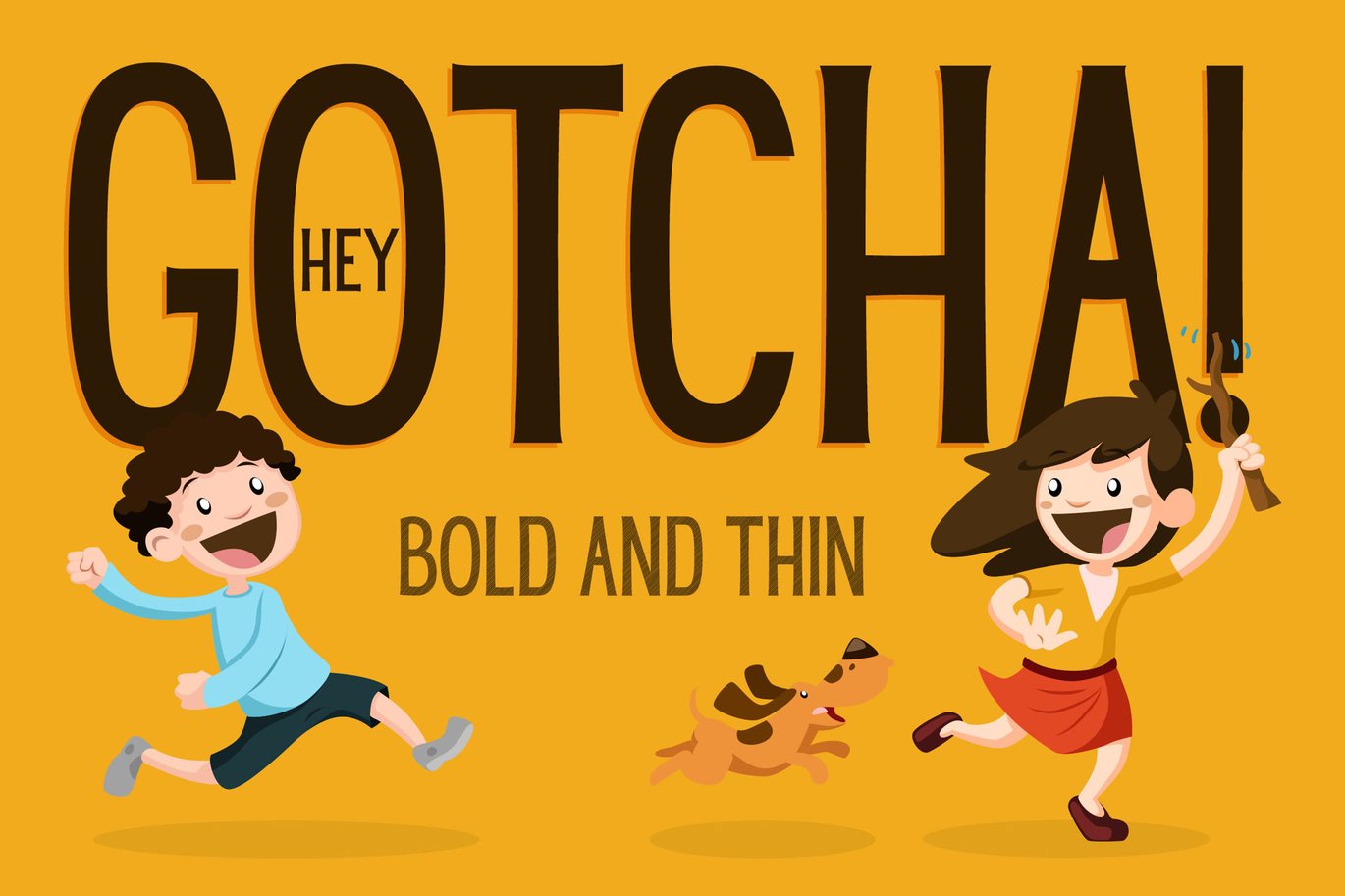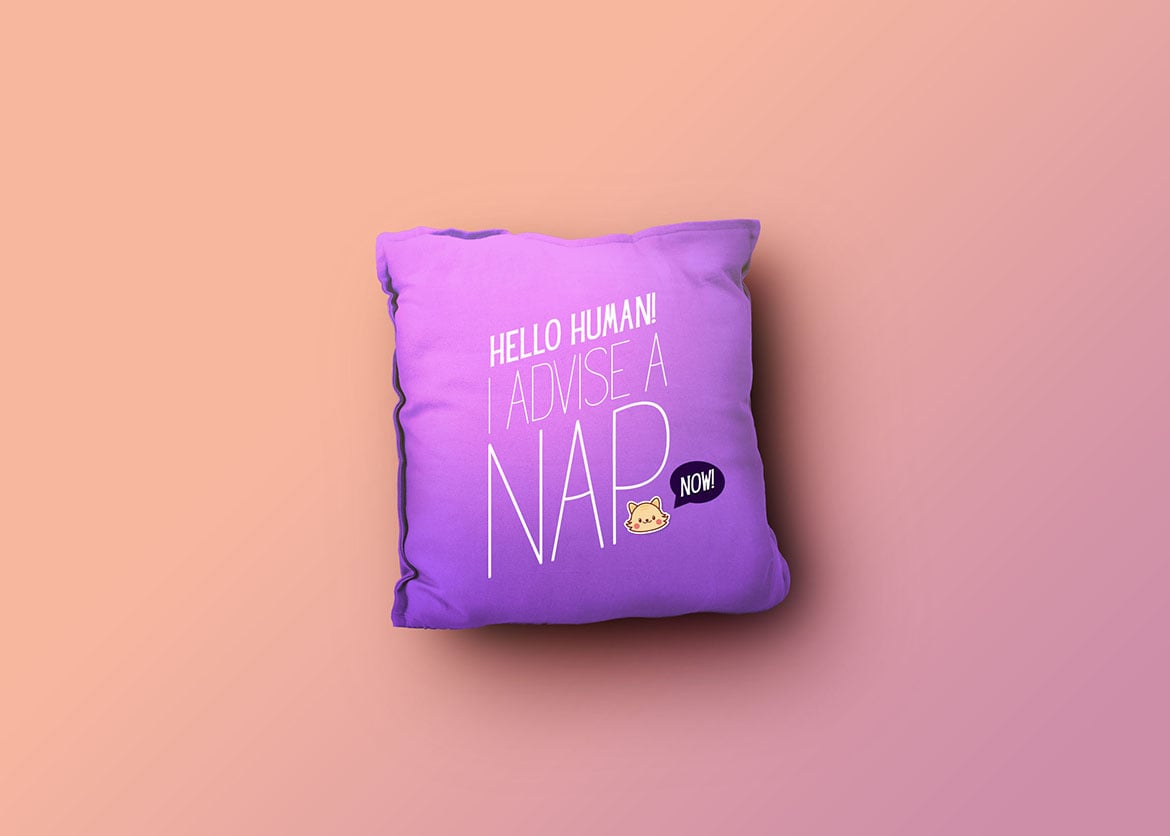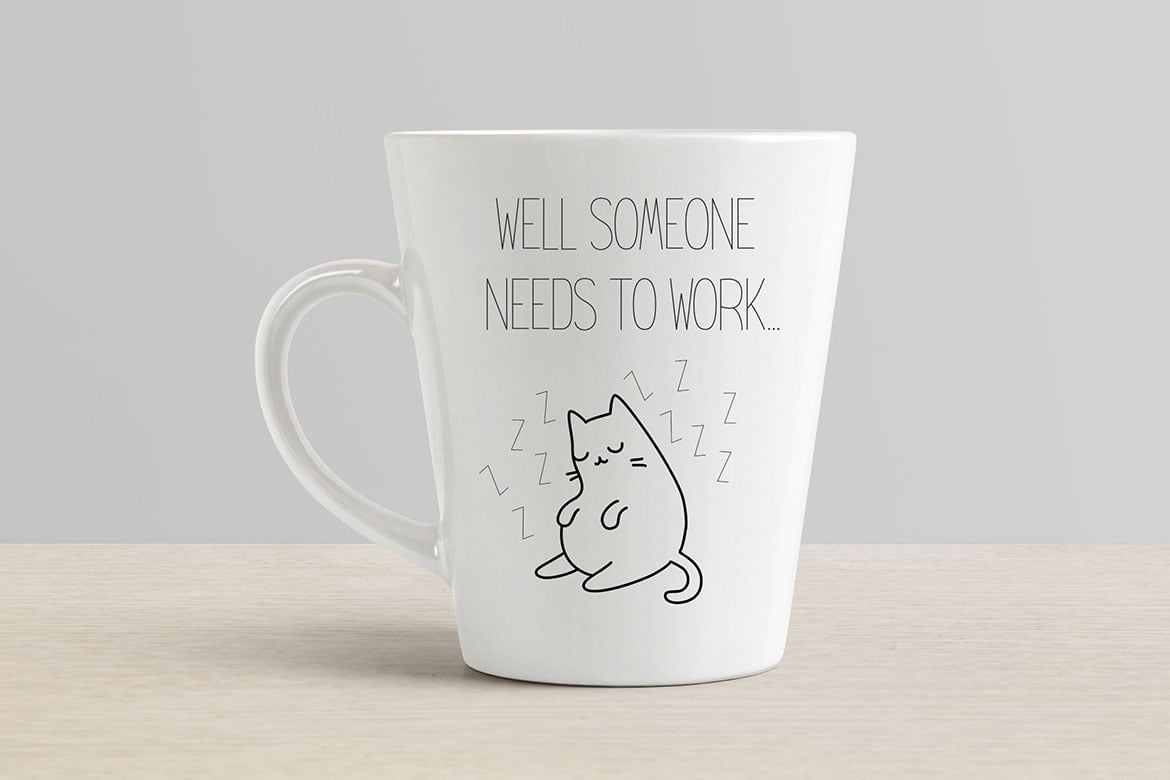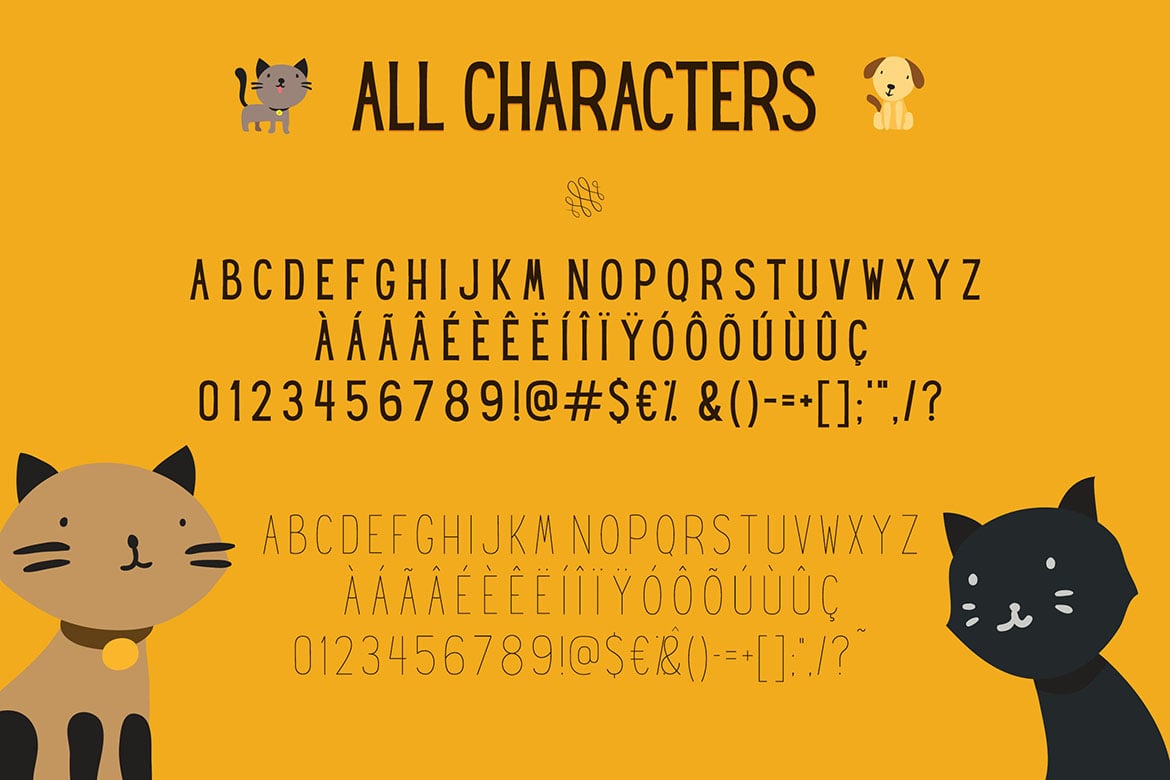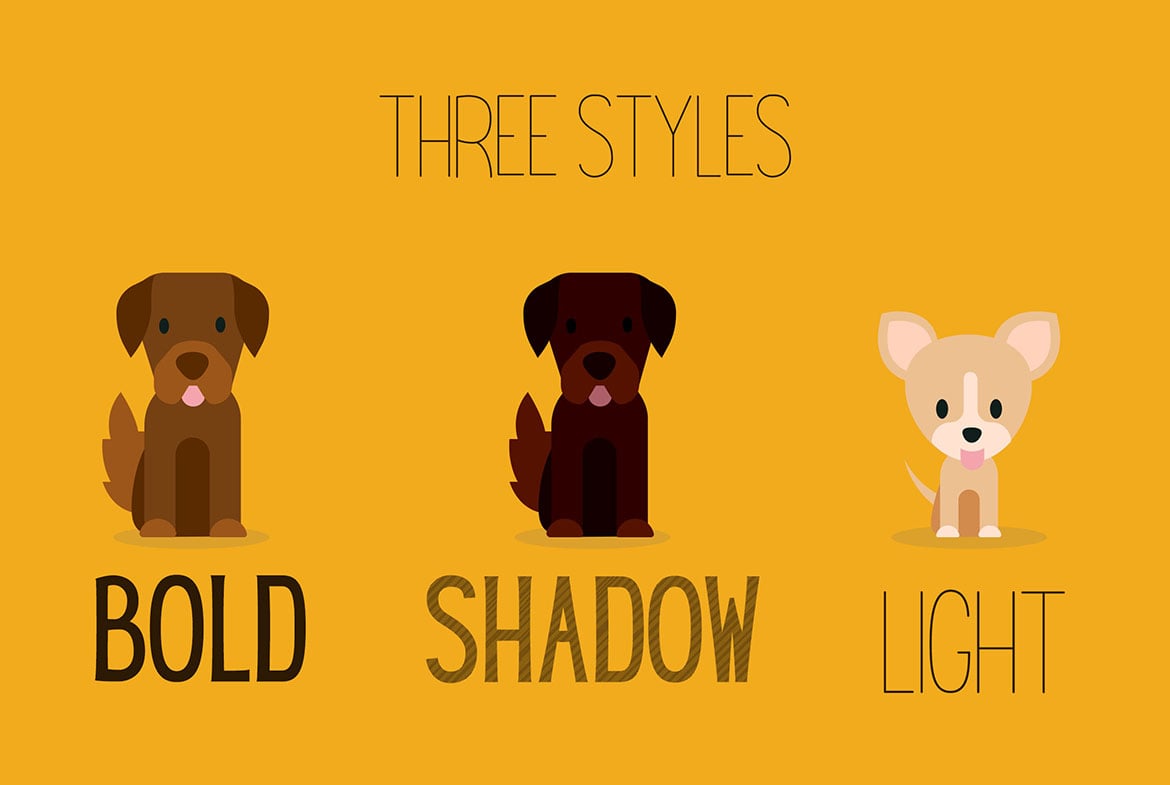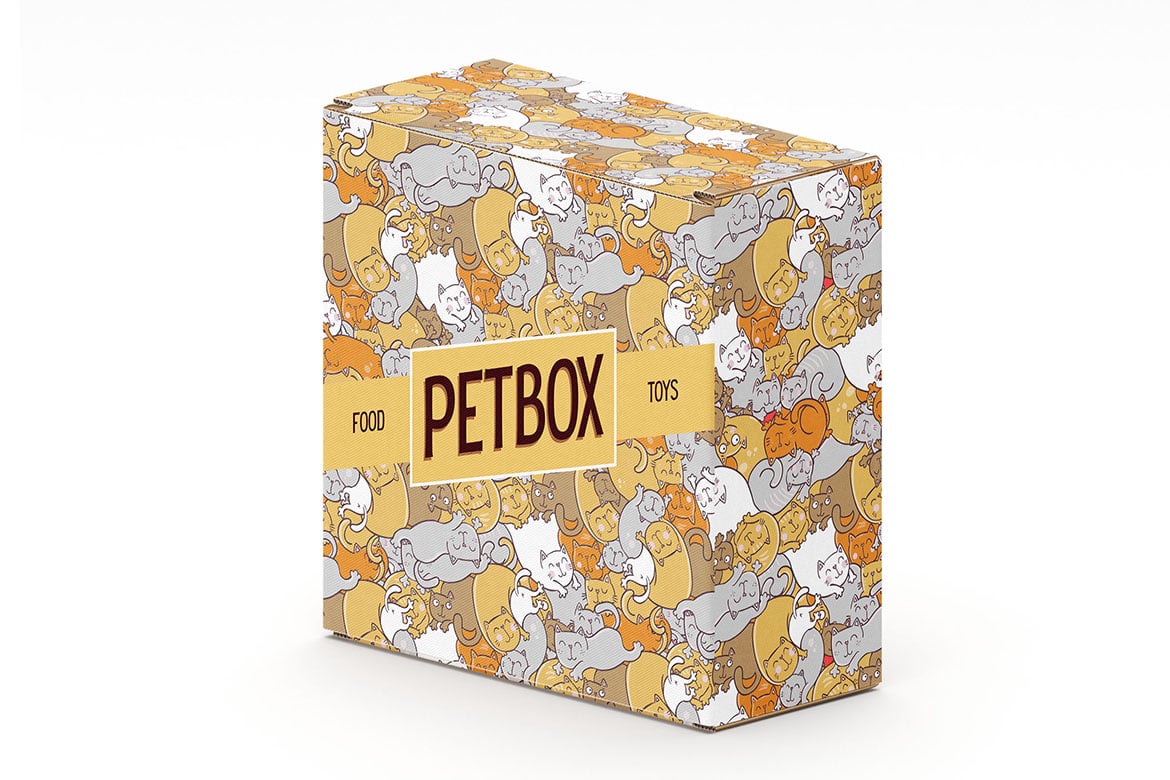
Hey Gotcha! Font – Bold & Thin
Meet Hey Gotcha! font, a fun and playful font it comes in bold, thin and a shadow layer! Great for creating a handmade lettering look for kids and children designs.
All Caps Font
Language Support:
English, Portuguese and Spanish.